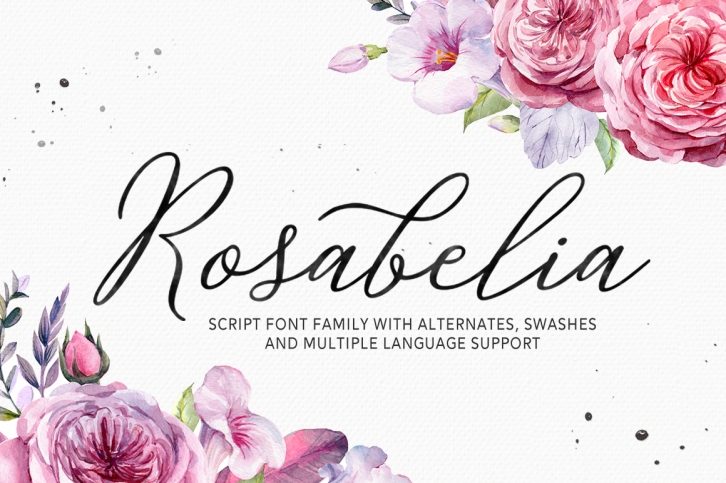
Rosabelia is a beautiful font that was designed by Solidtype. It's a great choice for designers and creatives who need such a font. It was released on December 17, 2017 and the file size is 3.95 MB. Rosabelia may give a more youthful, expressive and casual look to your project. It is a very beautiful, refined, elegant, and high-quality font.